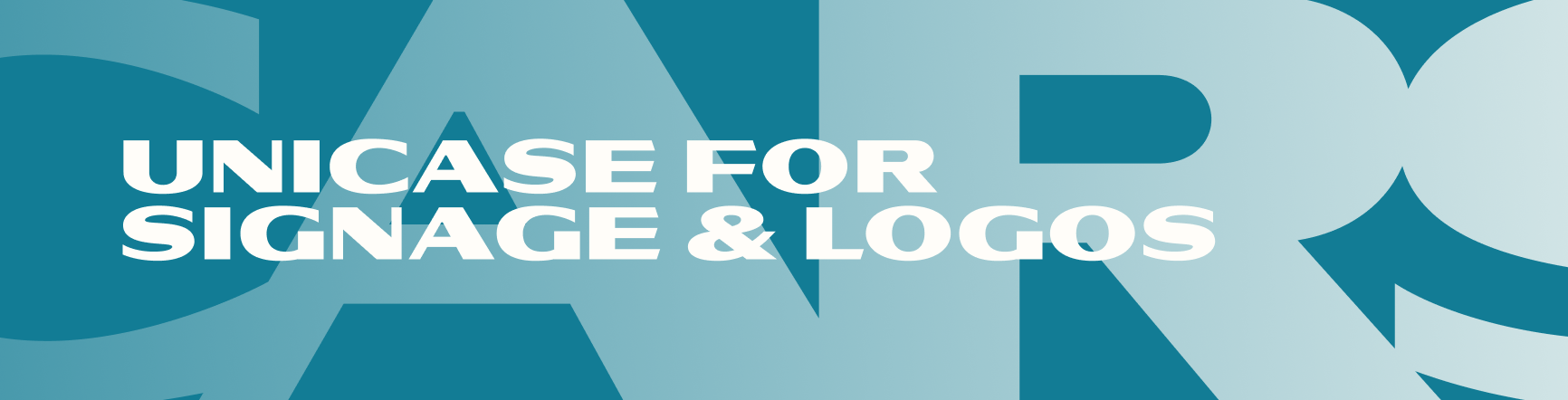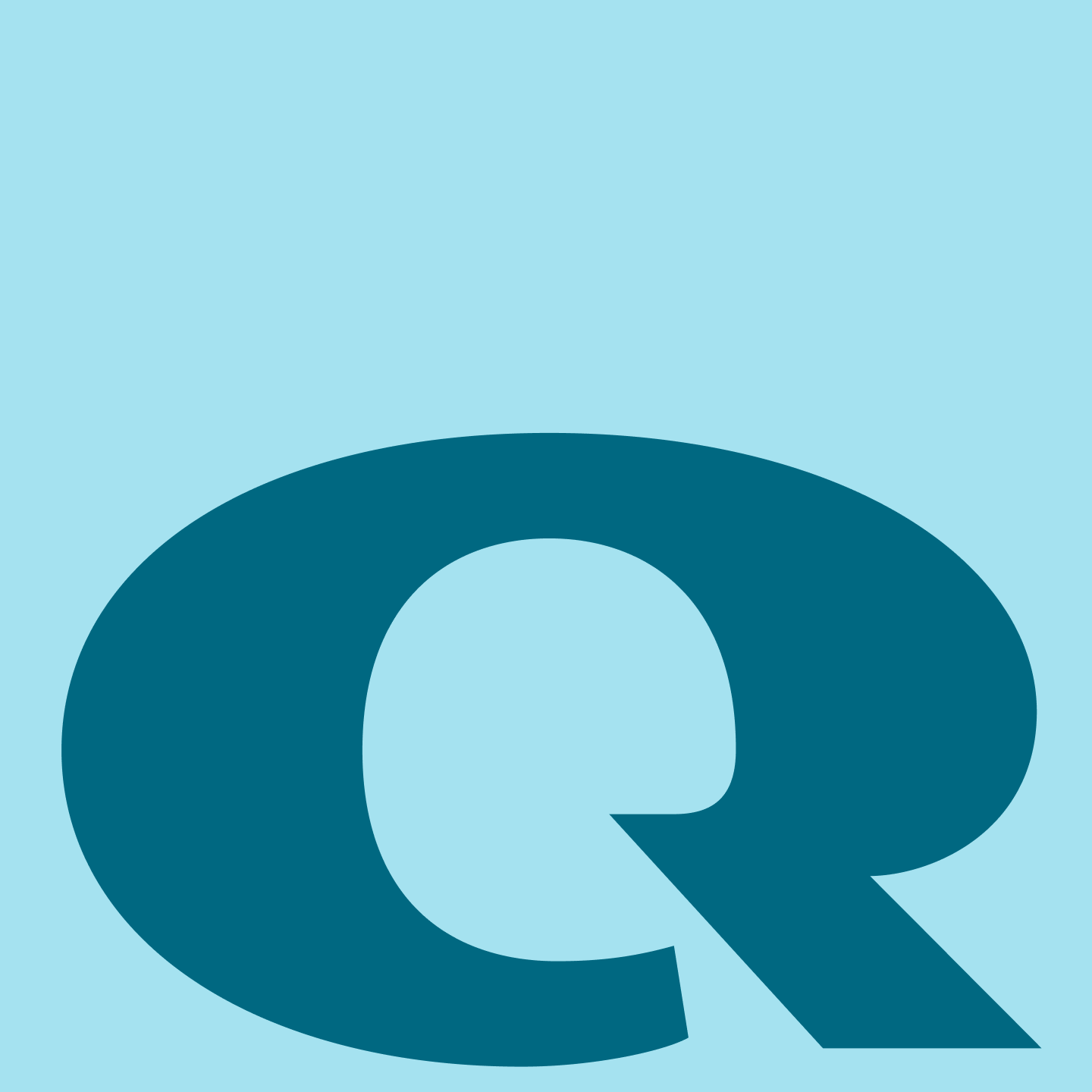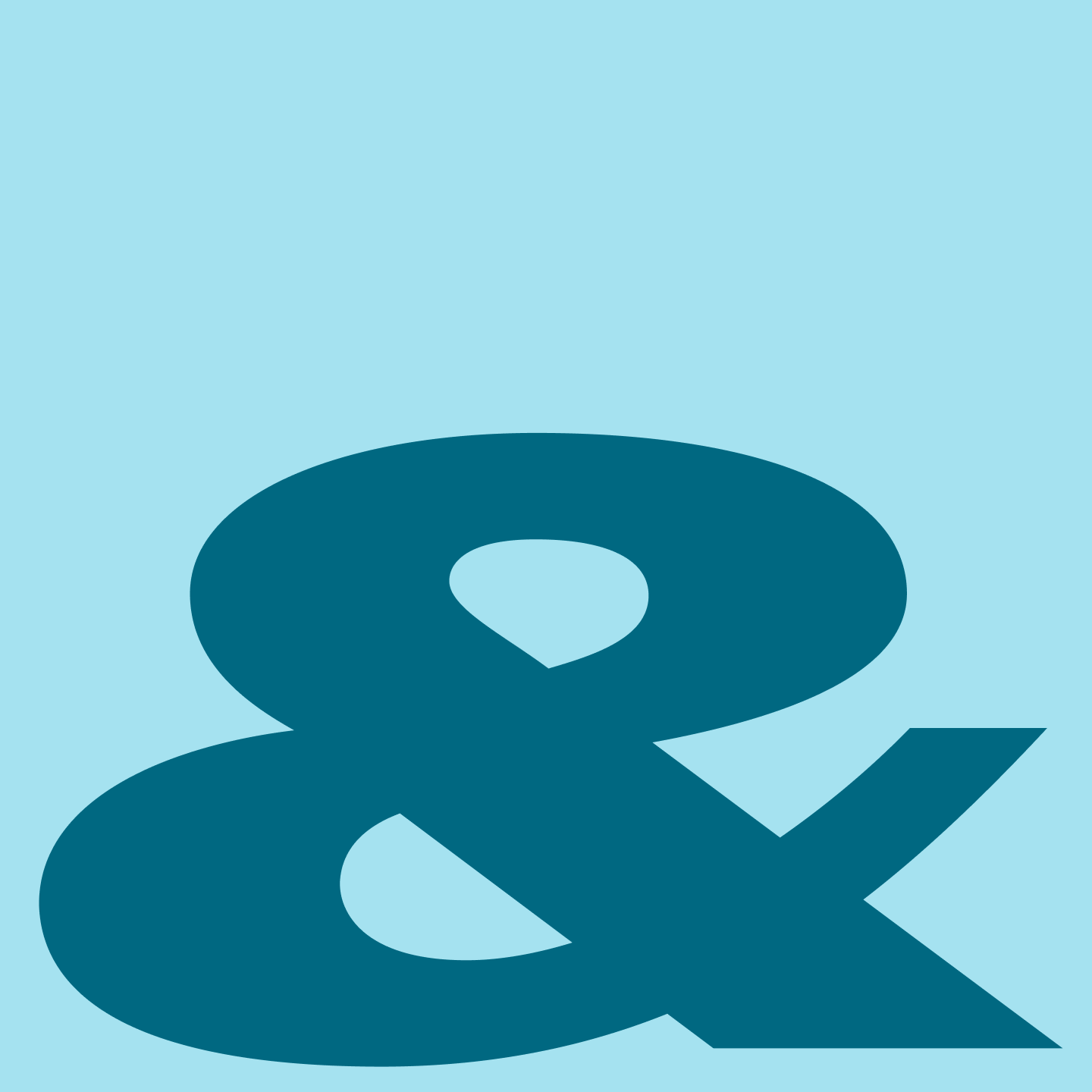
Used Cars is a all-caps unicase font that was created in a one-day exercise and is inspired by a hand-painted sign hanging at the Route 5 and 35 Auto Repair shop in Dayton, Maine. Starting with only a few letters the rest of the capitals were deduced to match the high-contrast, extra-wide, closely spaced style. That style is also great for logos—evoking legacy and technology.